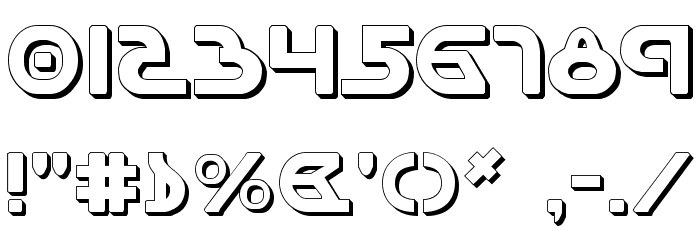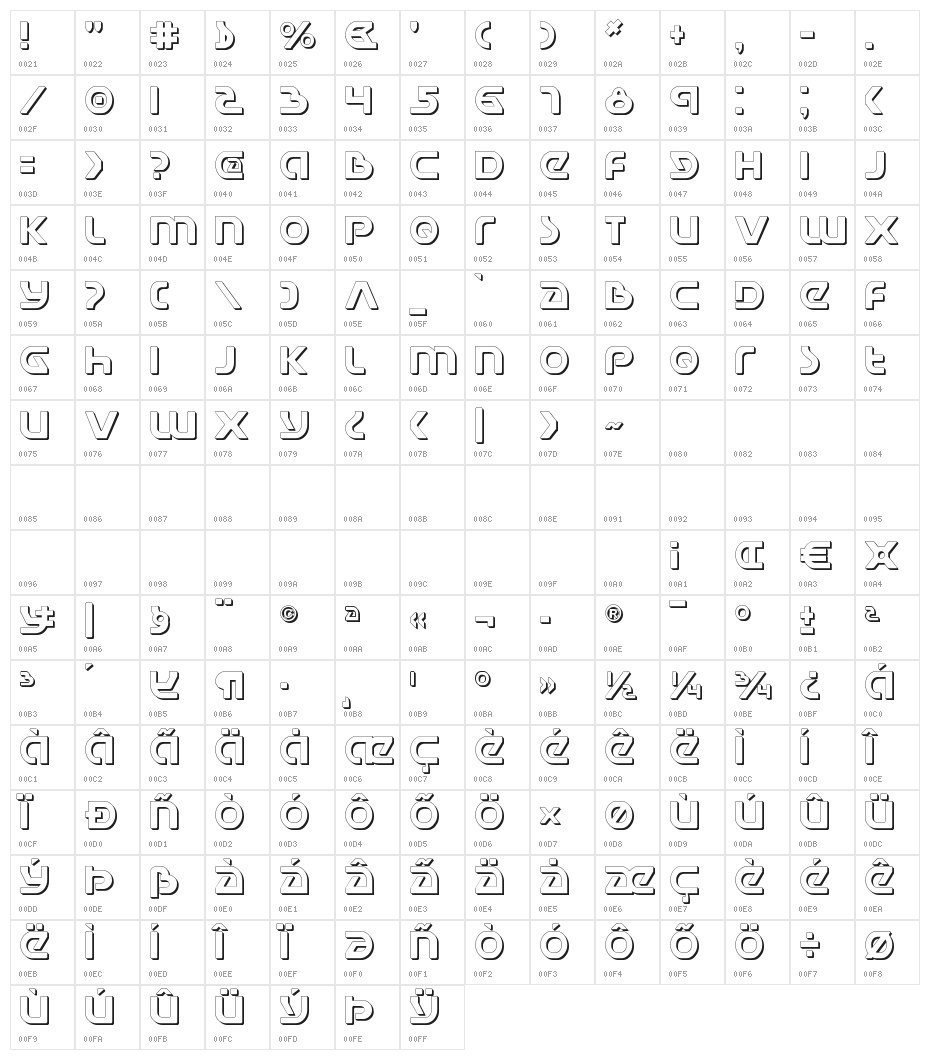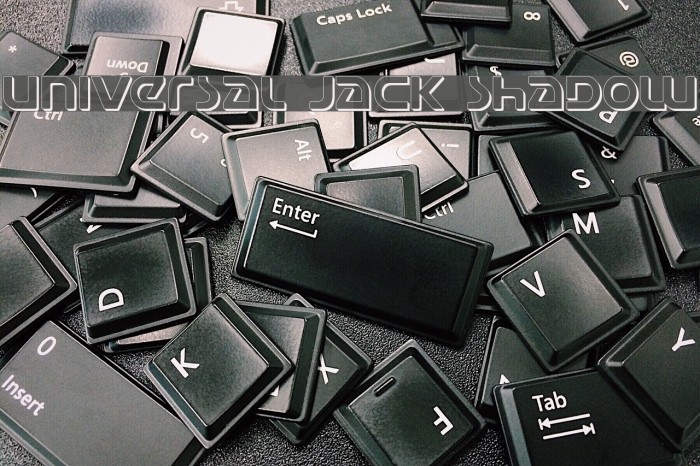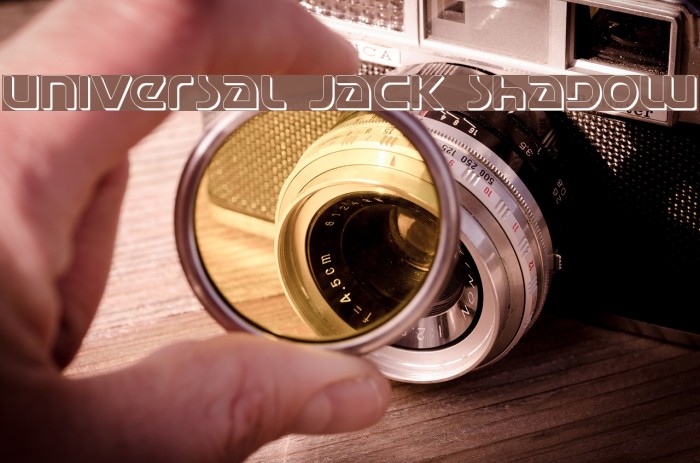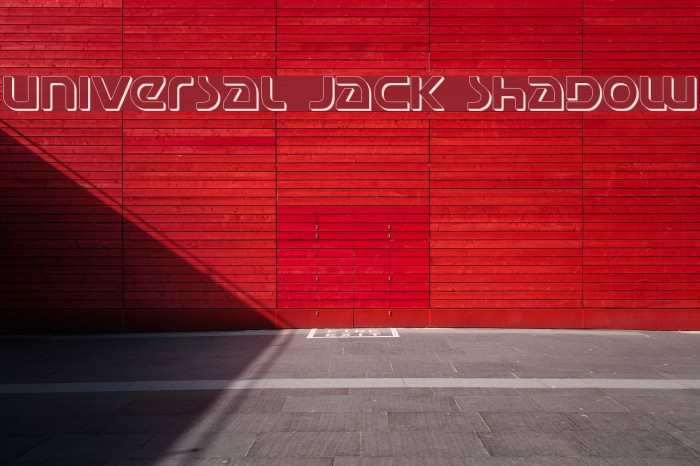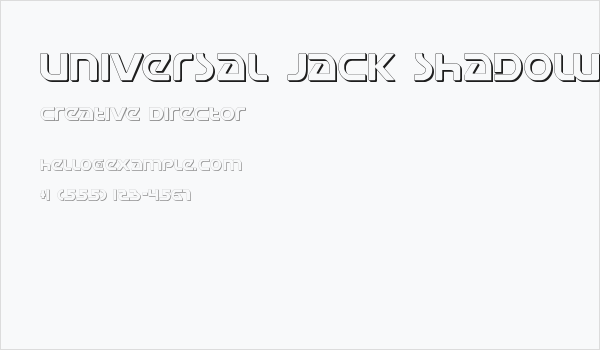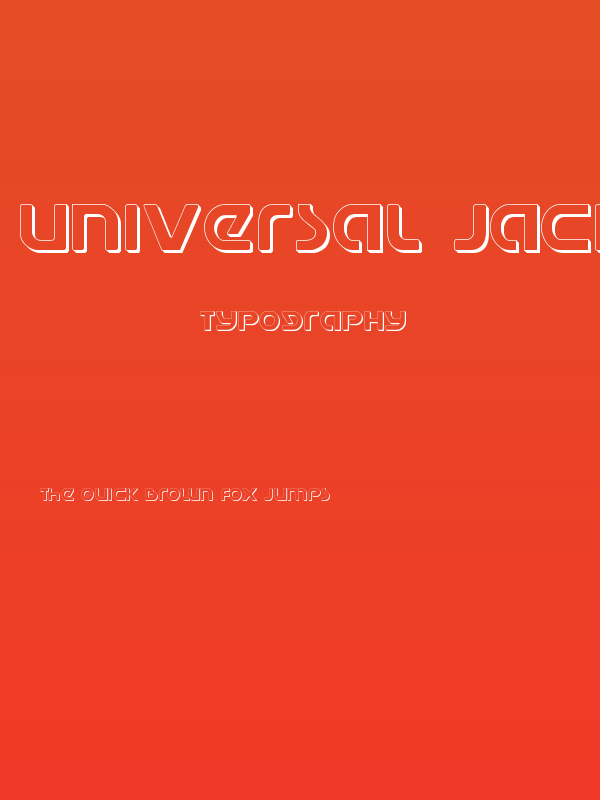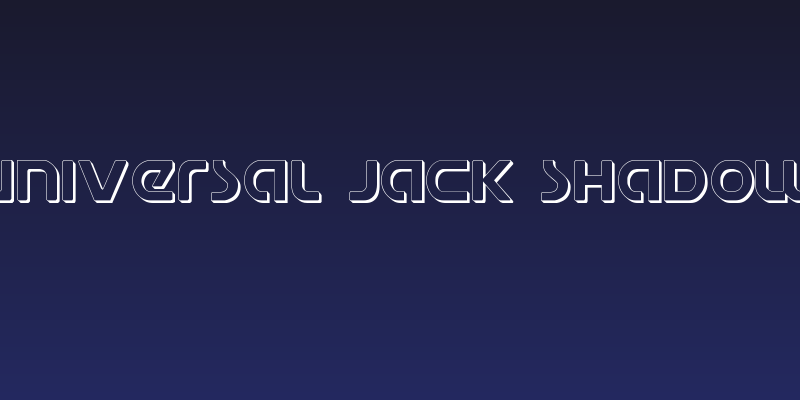
Universal Jack Shadow Font
Universal Jack Shadow Description
This font features a bold, futuristic design with a distinct shadow effect that gives it a three-dimensional appearance. The characters are outlined with a thick black line, creating a striking contrast against the white interior. The geometric shapes and sharp angles lend a modern and edgy feel, making it ideal for attention-grabbing headlines or logos. The uppercase and lowercase letters maintain a consistent style, with the shadow effect adding depth and dimension. Numbers and special characters are also designed with the same shadowed outline, ensuring uniformity across all elements.
Proposed ProjectsIdeal for sci-fi themed designs, technology branding, video game titles, and modern posters.